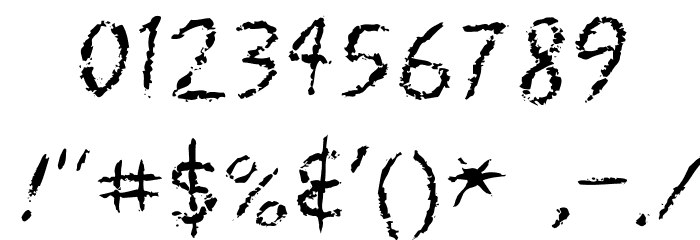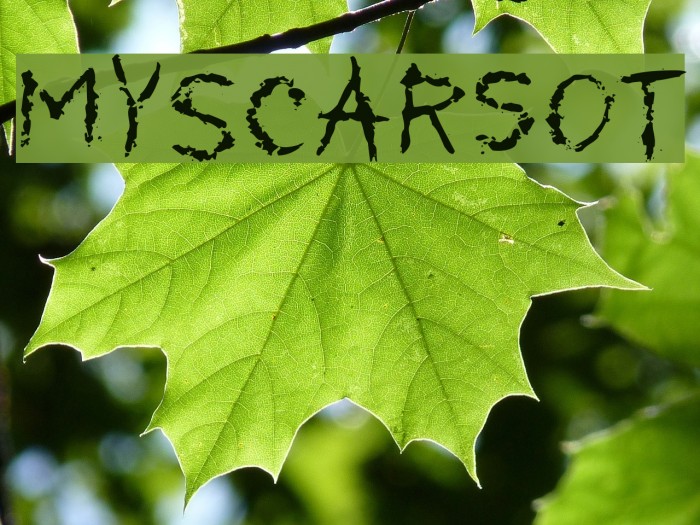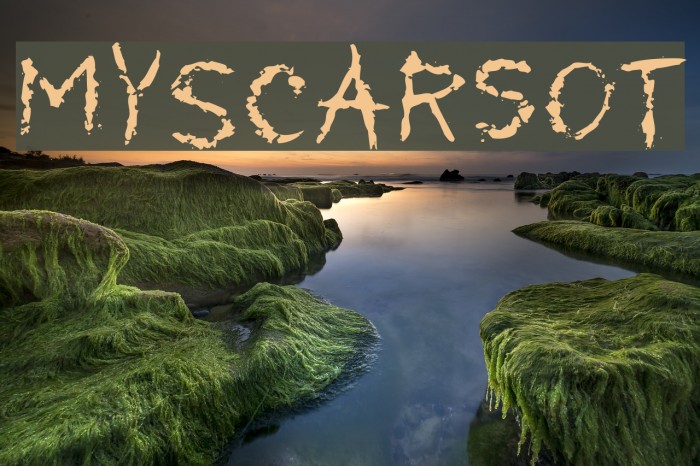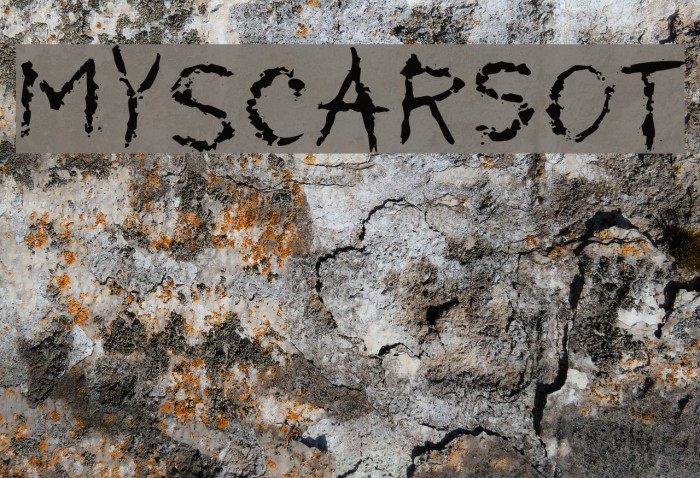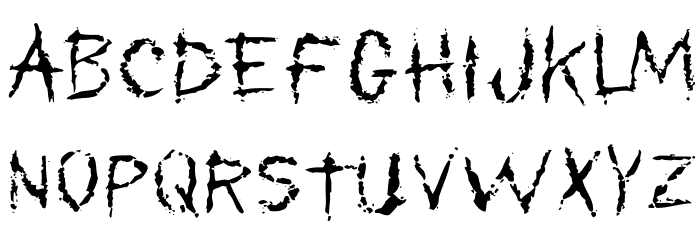
MyScarsOT Font
MyScarsOT Description
This font features a distressed, grunge style that gives the impression of being weathered or eroded over time. The characters are bold and have a rough, textured appearance, reminiscent of scratches or scars. This unique texture adds a dynamic and edgy feel to the text, making it stand out with a raw, organic look. The uppercase and lowercase letters maintain a consistent style, with jagged edges and irregular shapes that contribute to its rugged aesthetic. The numbers and special characters follow the same design, ensuring uniformity across all glyphs.
A bold, distressed font with a grunge, textured appearance from Uncategorized fonts.
- Proposed Projects: Ideal for album covers, poster designs, or any project requiring a gritty, urban aesthetic.
- Overall Style: Grunge, Edgy, Distressed